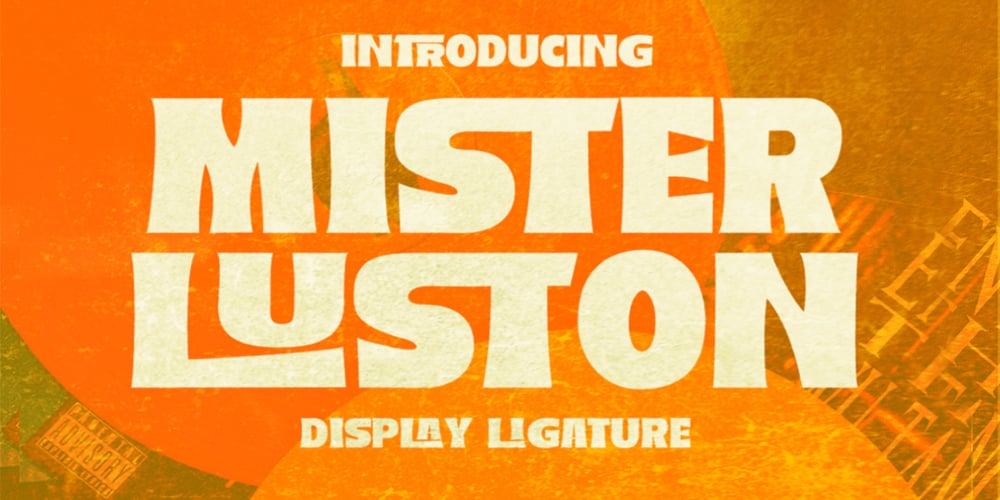
Mister Luston Font Family was designed by Yusliana M Isa and published by Gian Studio. Mister Luston contains 1 styles and family package options. Mister Luston is a bold, retro display with lots of ligatures and alternatives that will make your presentation or logo stand out! This font will make your project look retro, chic and neat. You can use this font for your posters, events or social media posts. Get your nostalgic feeling with this font character!Features Include:Uppercase & LowercaseLigatureNumbers & SymbolsMulty languagesPlease contact us if you have any questions, we are happy to help you!Enjoy!